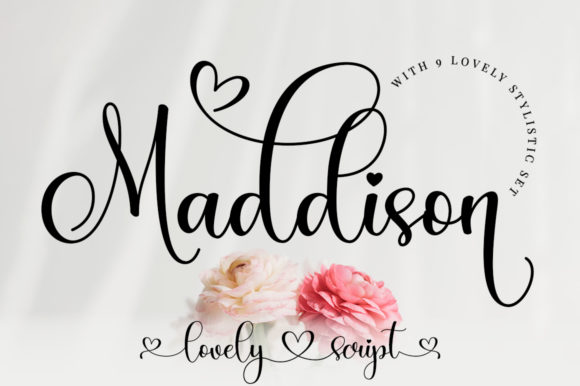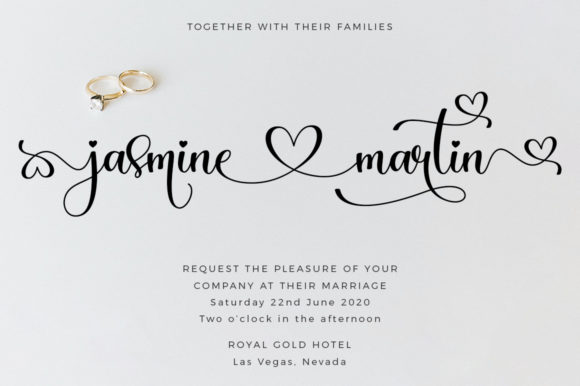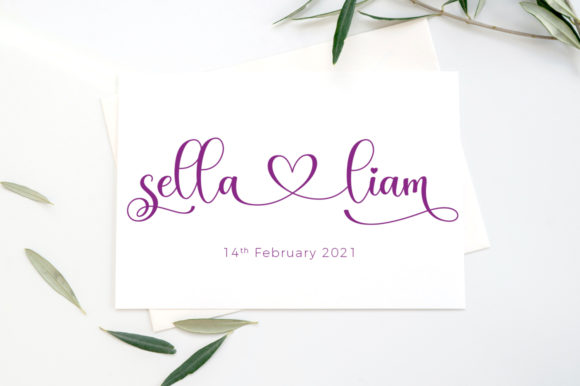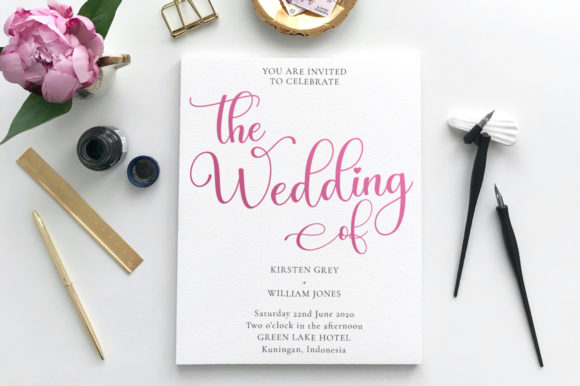
Maddison Font: Elegant Script Typography for Wedding & Logo Design
About the Maddison Font
Presenting Maddison Font, a unique and stylish typeface that will make your work stand out. Maddison is a romantic and sweet calligraphy typeface with characters that dance along the baseline. It has a casual, yet elegant touch. This font is PUA encoded which means you can access all of the glyphs and swashes with ease!
Maddison’s romantic style is ideal for projects requiring a touch of elegance and playfulness. It excels in headlines, short text blocks on invitations or packaging, and logos where its graceful curves can make a statement. However, its delicate nature makes it unsuitable for body text or UI elements where readability is paramount; long paragraphs set in Maddison would be visually overwhelming.
Pairing Maddison effectively requires a contrasting font to provide balance. A clean sans-serif like Open Sans or Lato would offer excellent readability for supporting text, creating a sophisticated contrast. For a more playful feel, a geometric sans-serif such as Montserrat could be used.
Maddison projects a charming, feminine personality, best suited for brands focused on beauty, fashion, or artisanal goods. Its inherent sweetness makes it less appropriate for projects demanding strength or boldness.